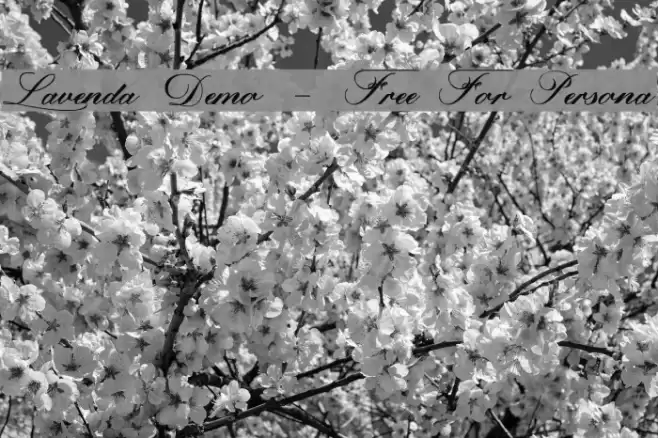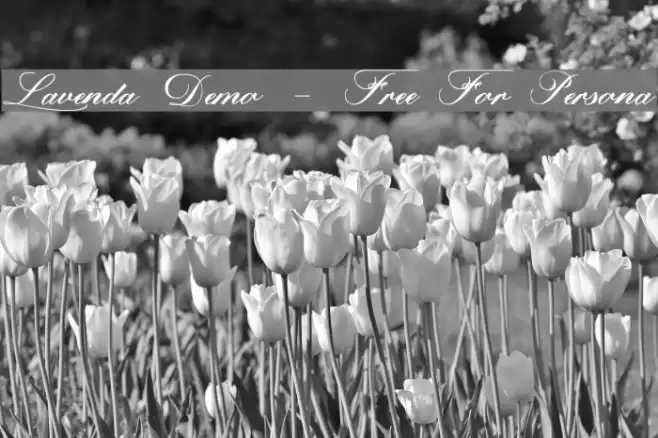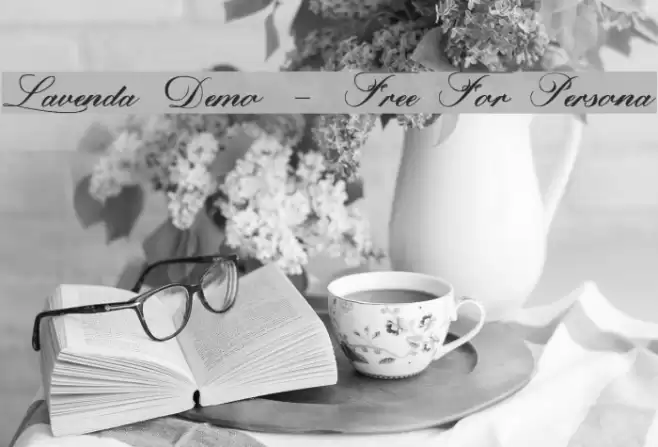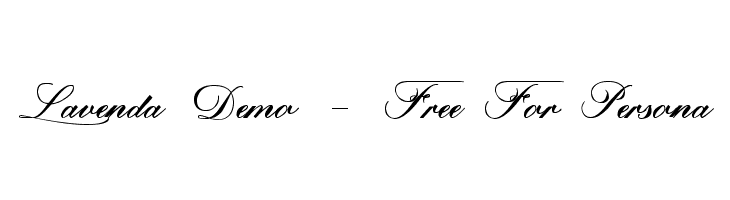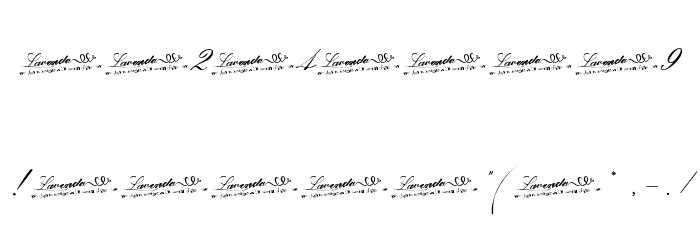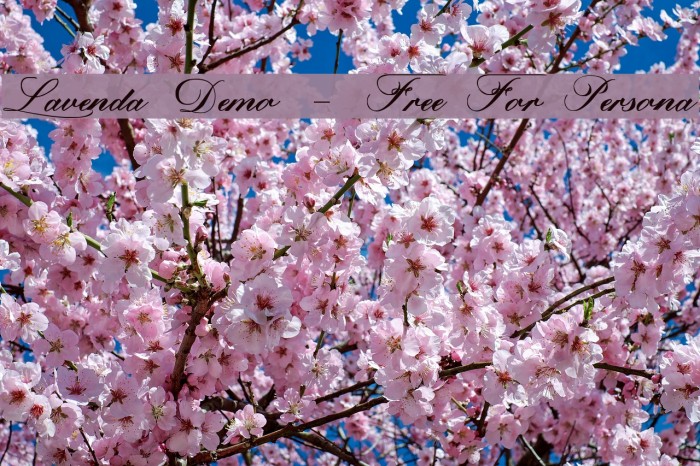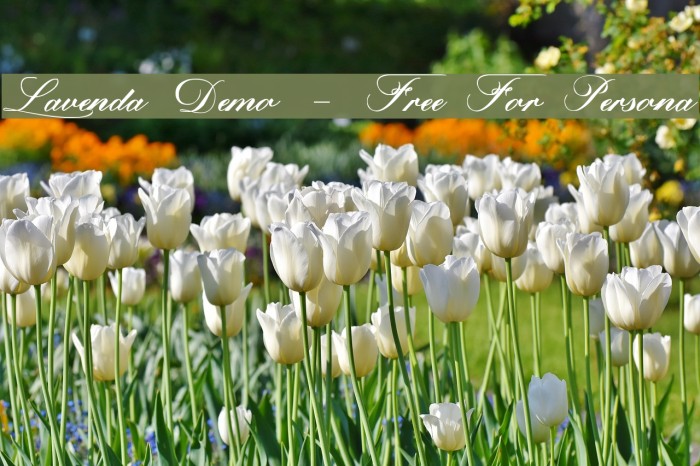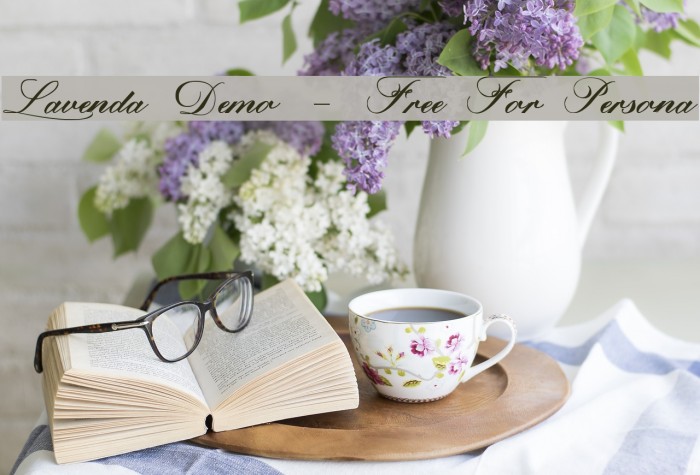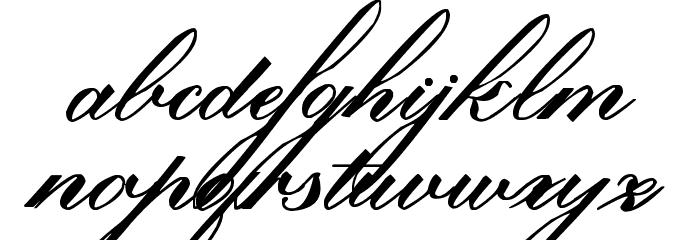
Lavenda Demo - Free For Persona Font
Lavenda Demo - Free For Persona Description
This elegant script font features intricate, flowing letterforms with elaborate swashes and flourishes. The uppercase letters are particularly ornate, with extended loops and curves that give a sense of movement and grace. The lowercase letters maintain a consistent style, with smooth, connected strokes that enhance readability while retaining a sophisticated appearance. The numbers and special characters are designed to match the overall aesthetic, ensuring a cohesive look across all text. This font's high contrast between thick and thin strokes adds to its dramatic and luxurious feel, making it ideal for projects that require a touch of elegance and refinement.
An elegant script font with intricate swashes and high contrast strokes from Uncategorized fonts.
- Proposed Projects: Ideal for wedding invitations, luxury branding, elegant stationery, and high-end product packaging.
- Overall Style: Elegant
- Use Case: Logos, Invitations, Decorative text